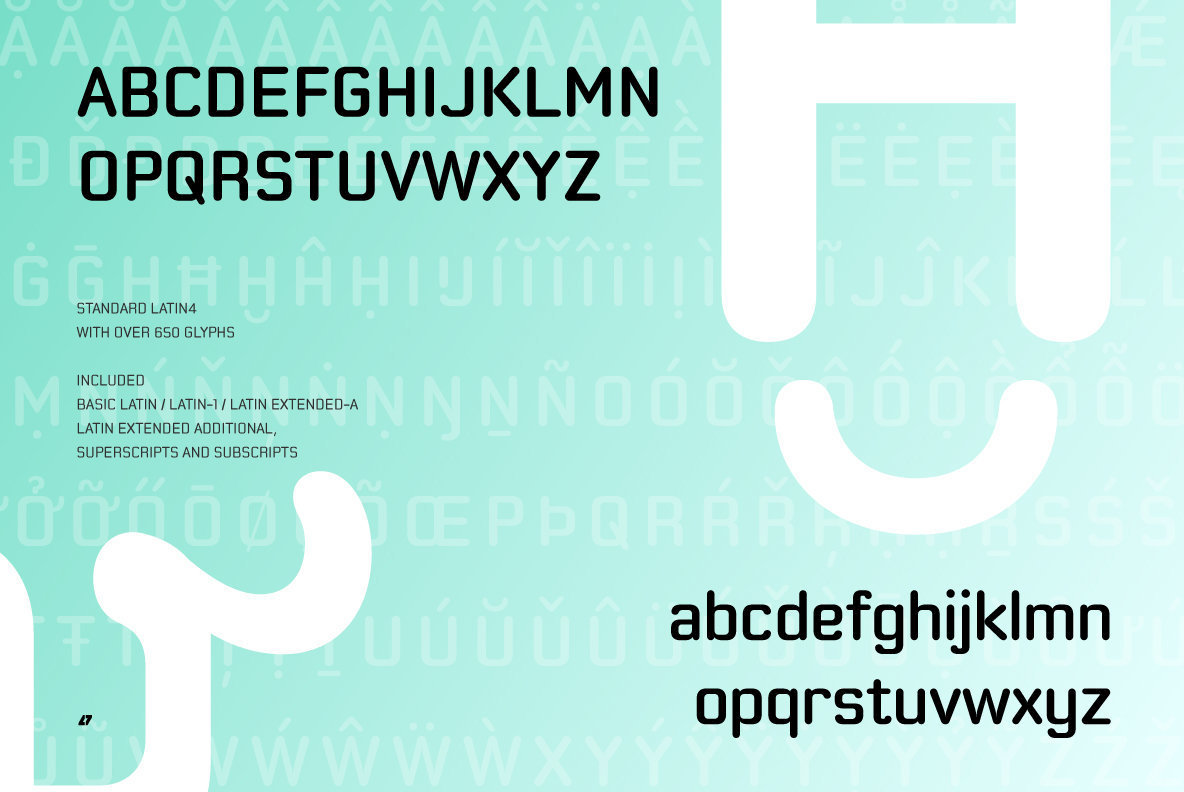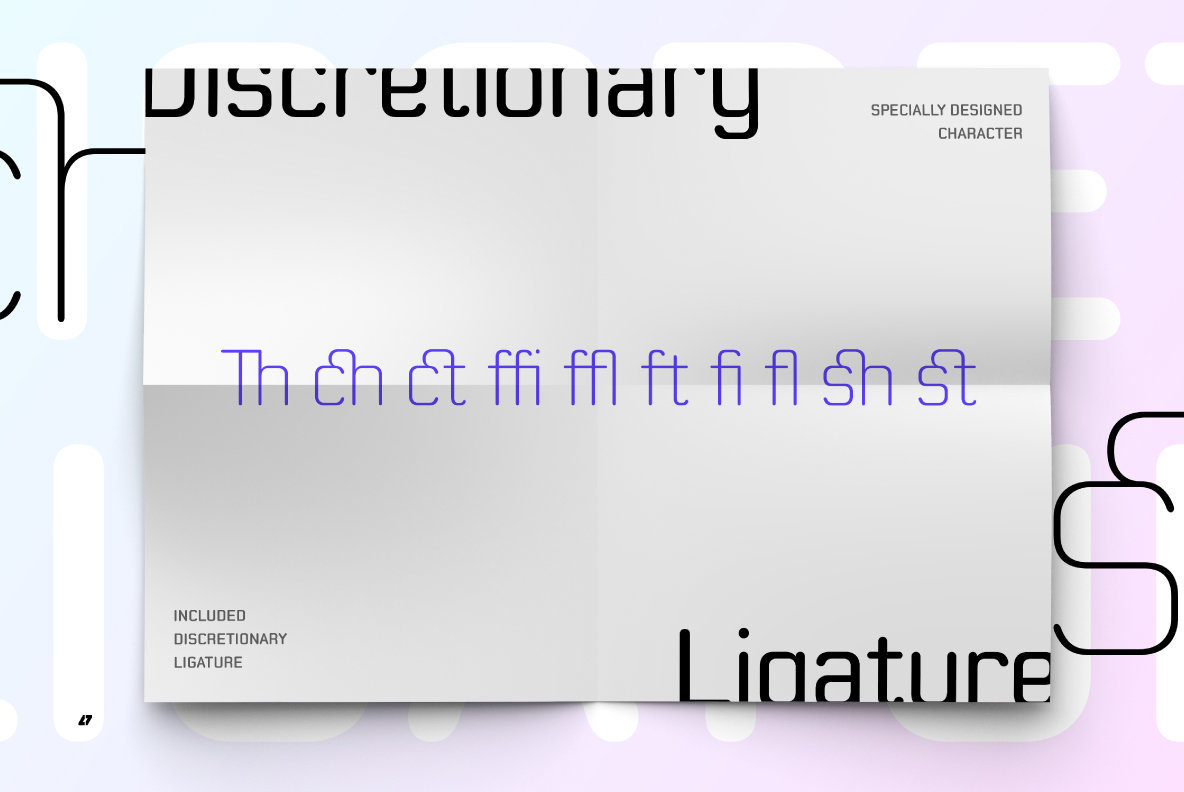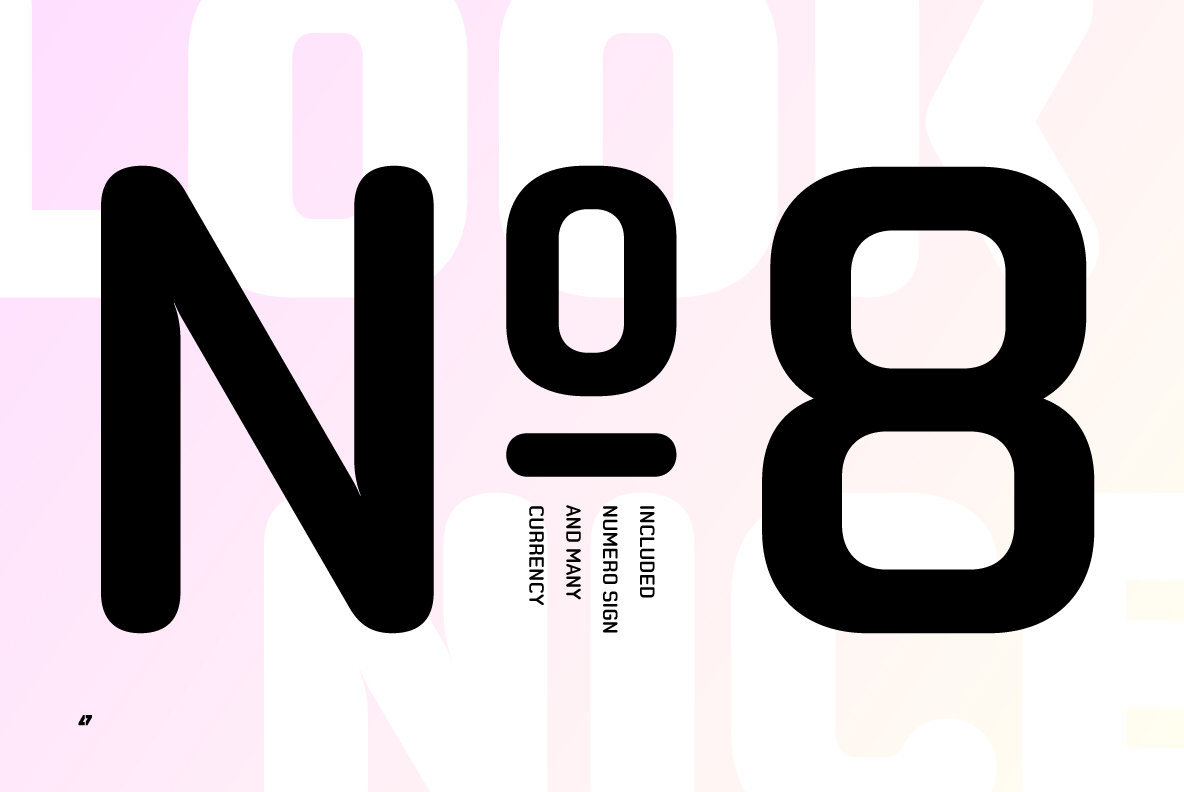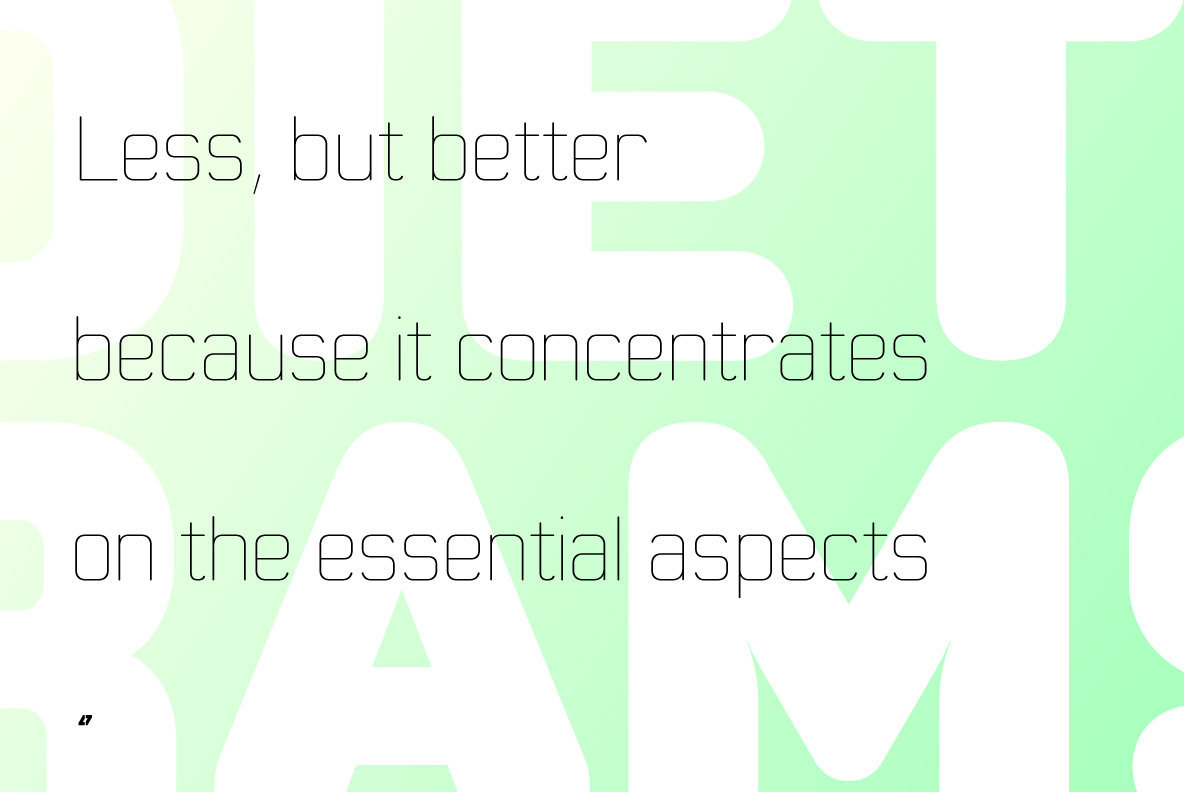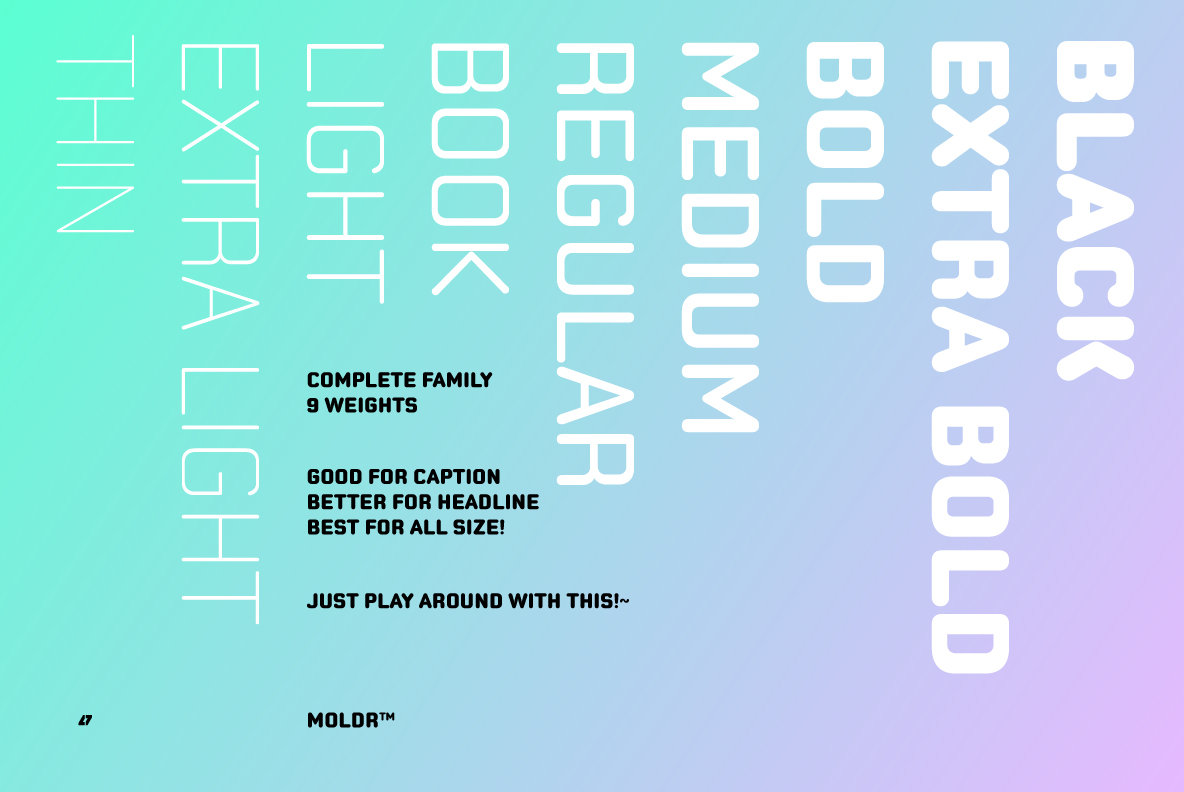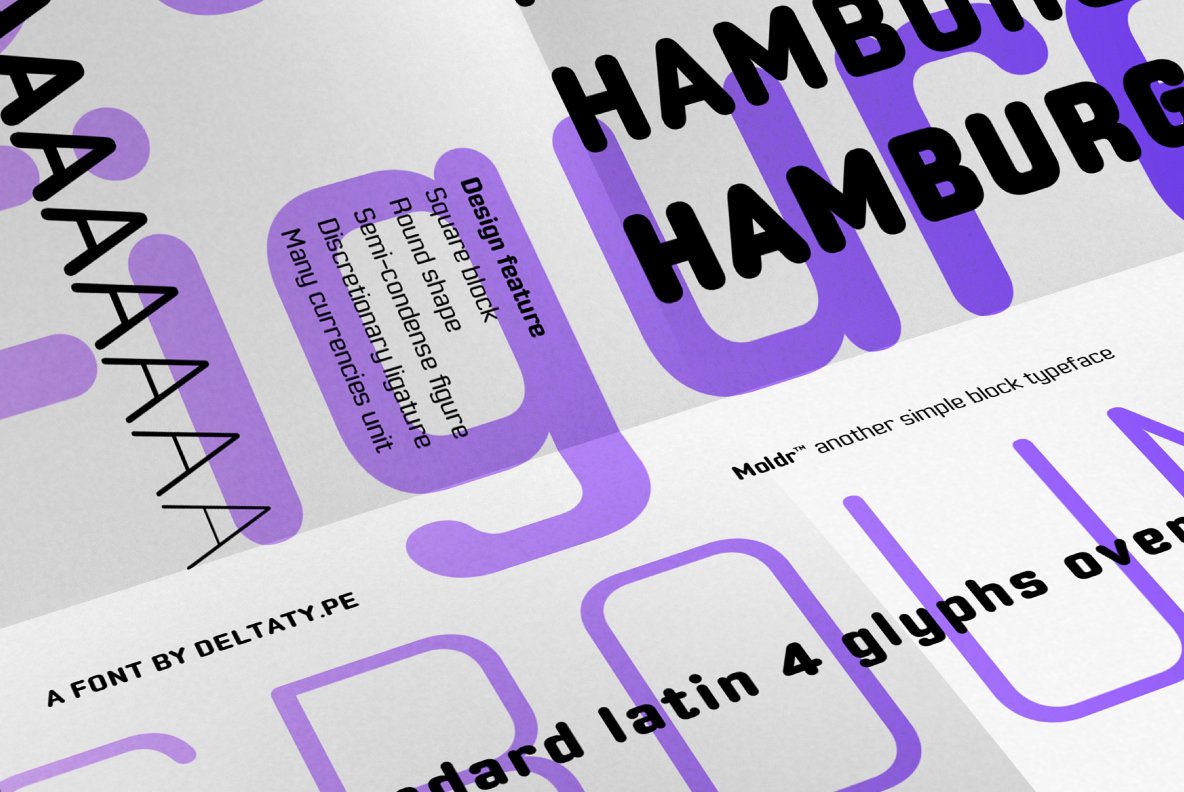
Moldr Font
Moldr is a sans-serif typeface design inspired by industrial machine molds.
Deltatype is a Thai type design studio known for its innovative approach to the Thai alphabet, crafting modern fonts that honor the language's unique visual character. Their work responds to the evolving role of typography in Thai design, where letterforms often serve as expressive design components, not just...